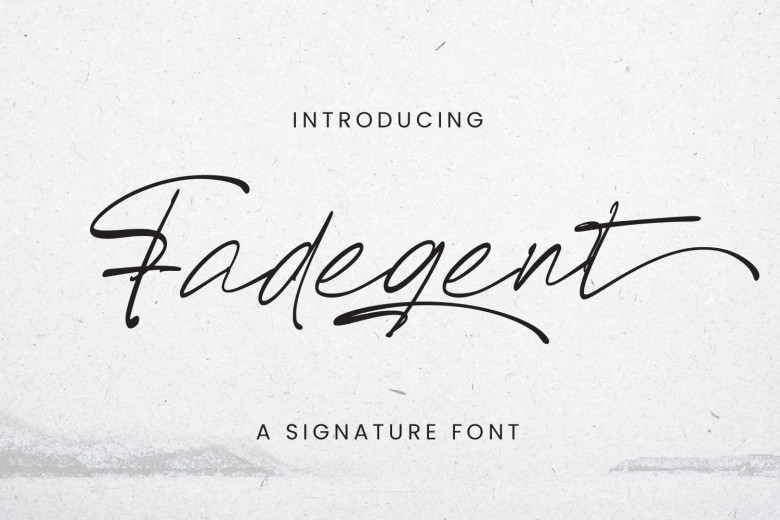
Fadegent Font
Fadegent Font is an elegant signature style font. Adding a luxurious aesthetic, its graceful strokes and refined curvatures lend Fadegent Font a luxurious appeal that lends itself to logos, branding projects and upscale projects alike – exuding sophistication while exuding effortless charm.
Fadegent Signature Script Font